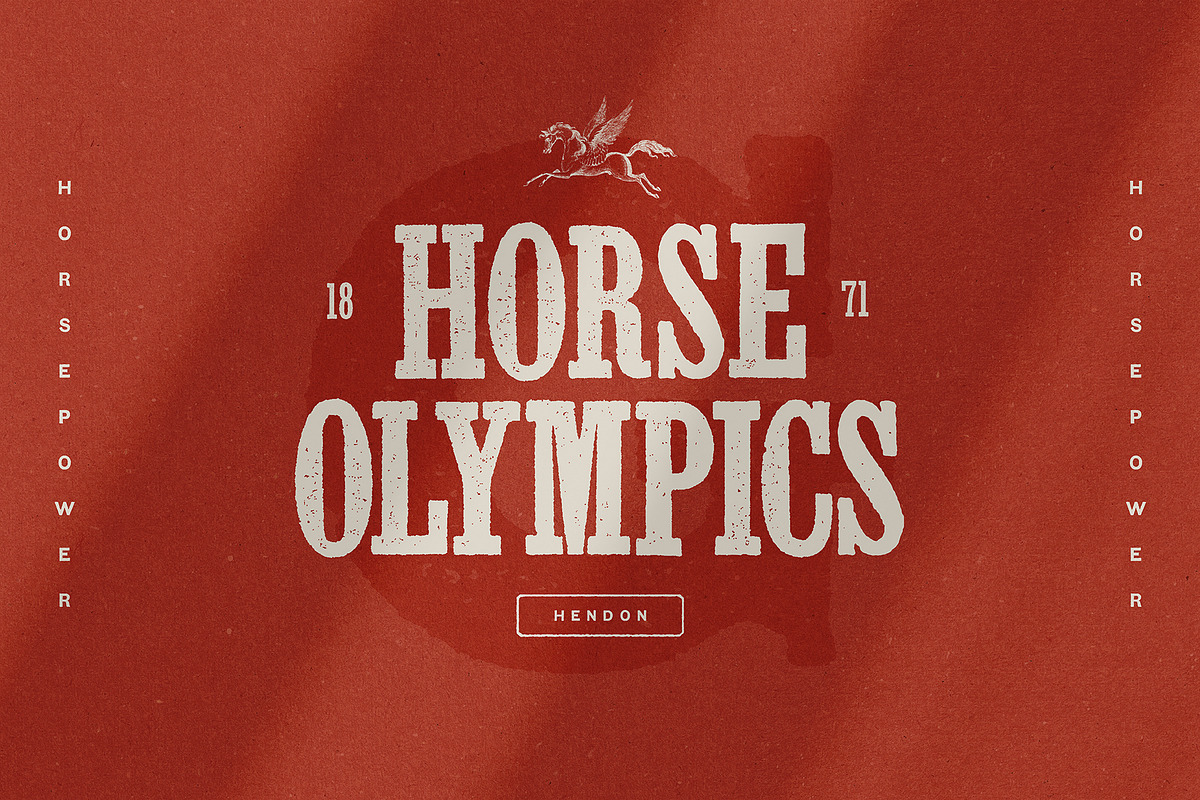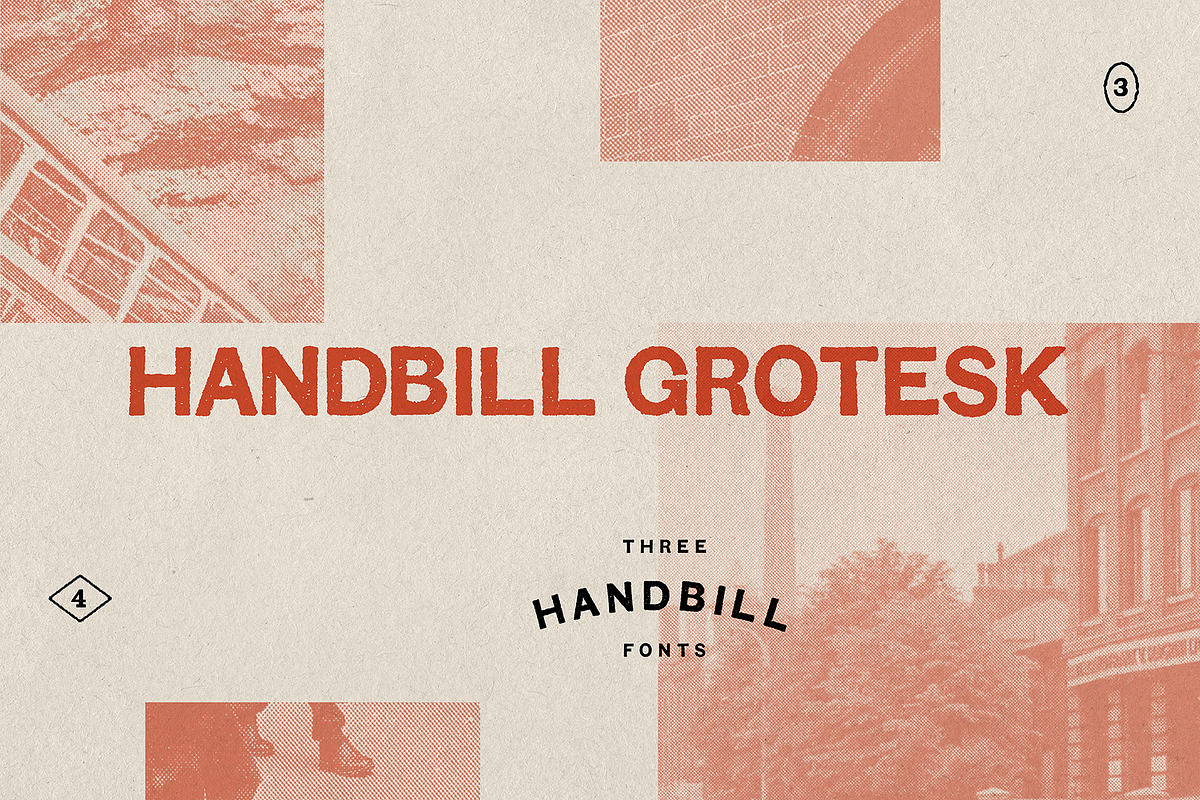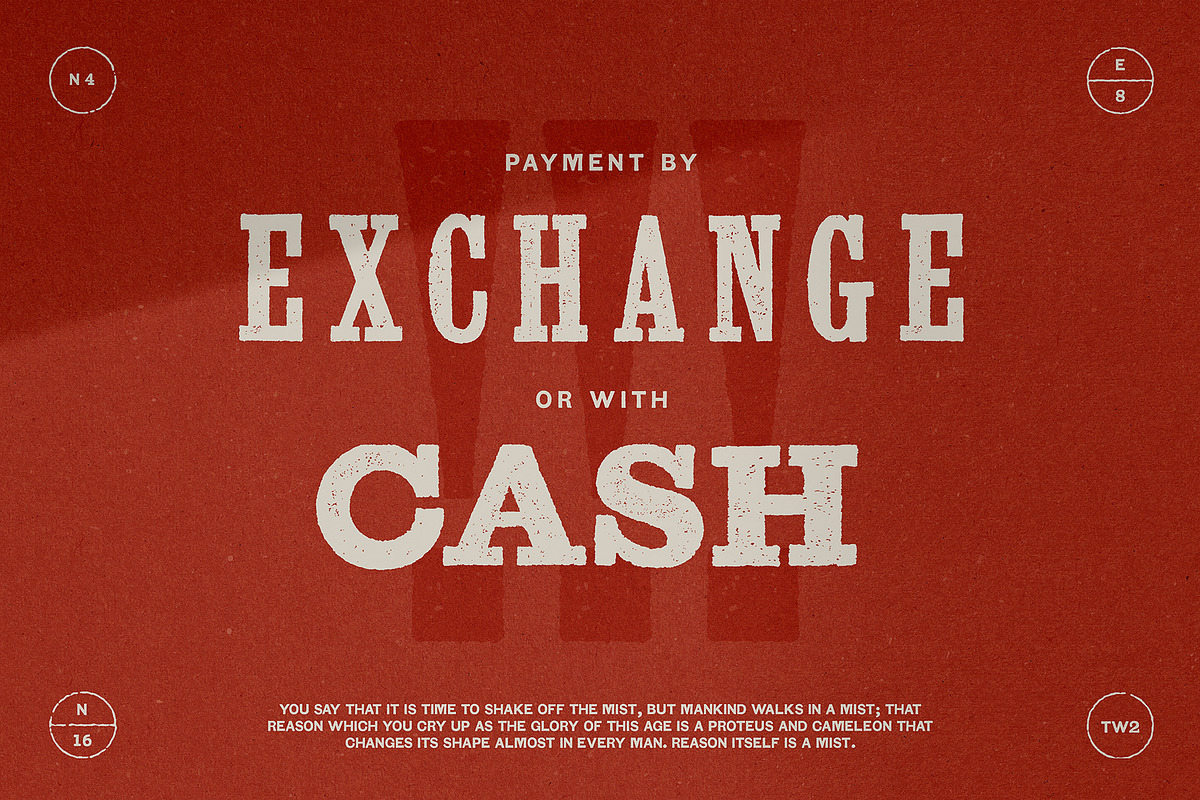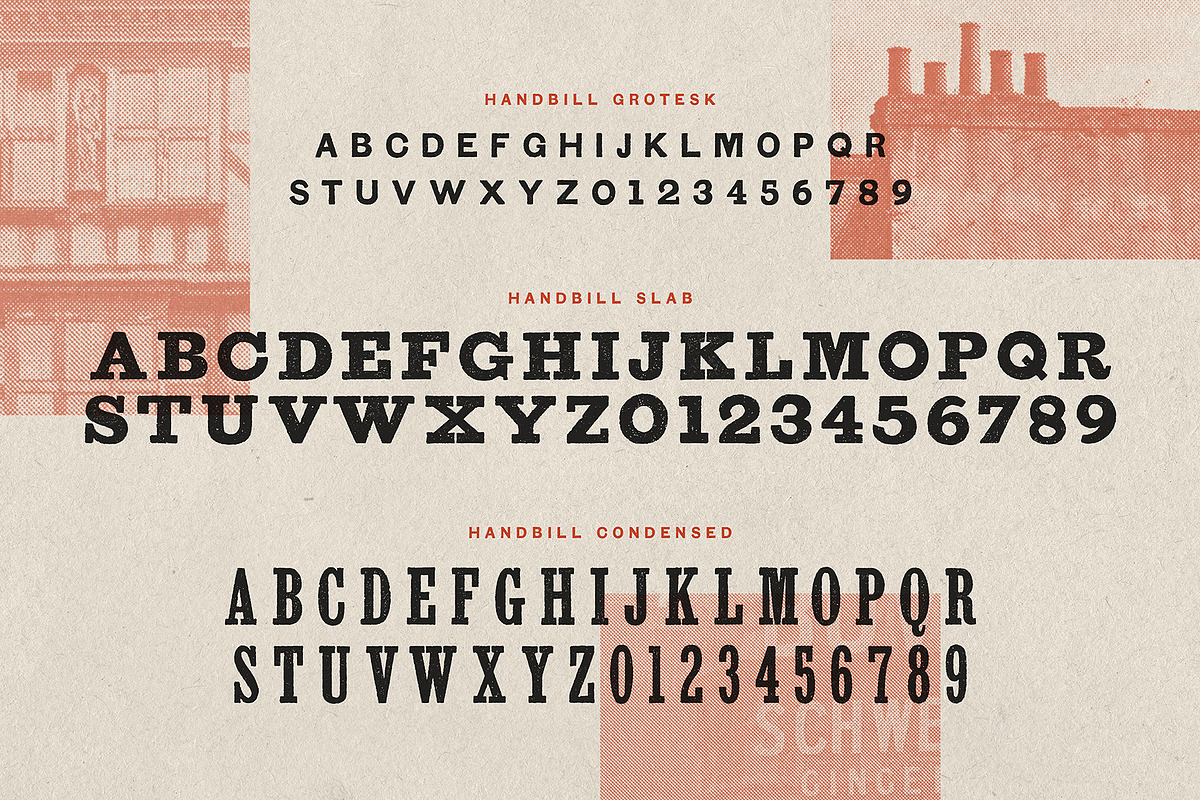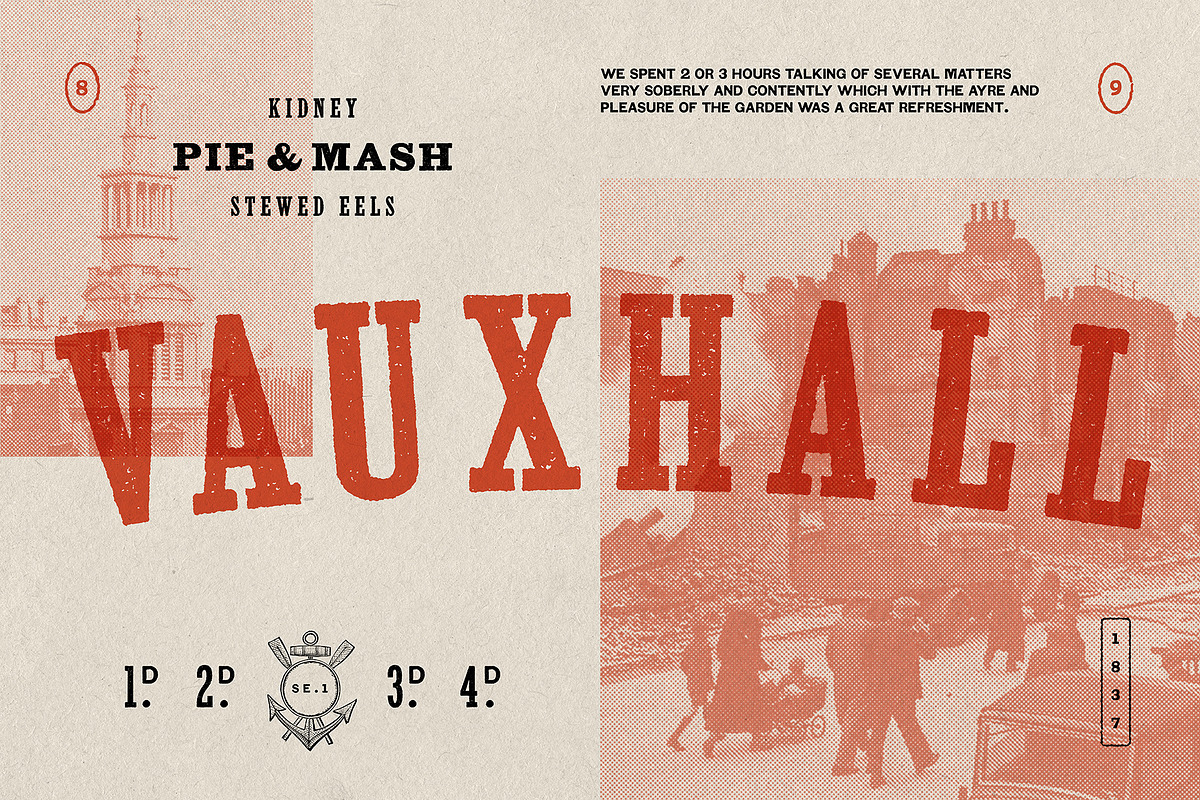
Handbill: letterpress type family
Handbill is a display type family of THREE fonts, developed from scans of vintage letterpress advertising handbills.
Handbill evokes a time when advertising was verbose and energetic; in which rows of imperfect, handmade letterforms of all sizes and forms competed with each other to grab the reader's attention.
Perfect for editorial design, branding, and posters.
- capitals only
- three fonts (Slab, Grotesk and Condensed)
- full English alphabet, numerals and punctuation